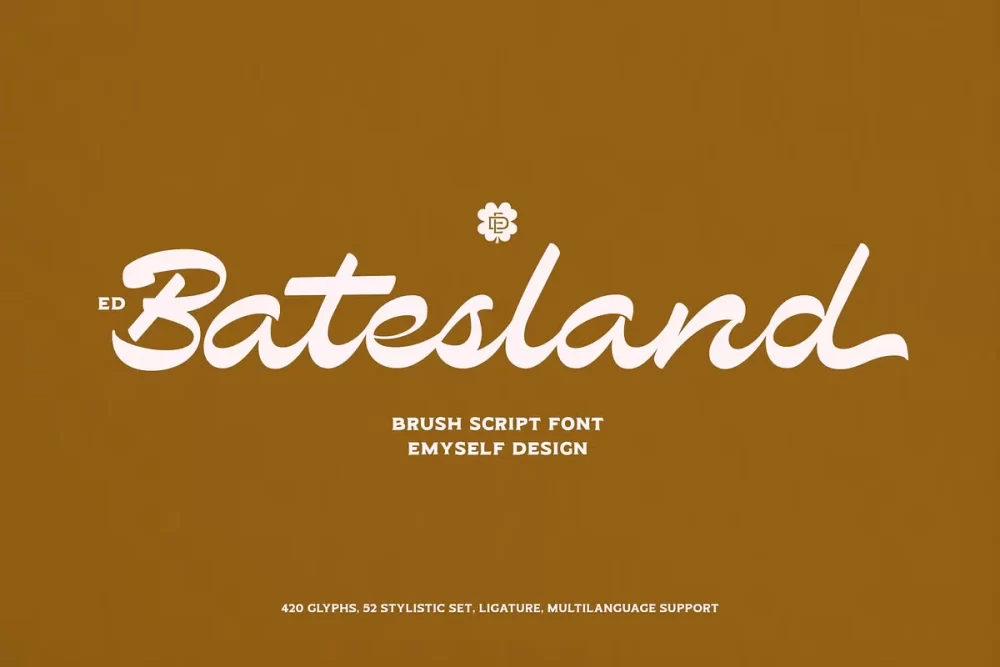
ED Batesland is a brush script font with a classic style. This font is also equipped with 52 stylistic sets, ligatures, and multi-language support which further adds to the creativity in using this font.
This font is perfect for your creative projects such as Logotype, printed quotes, invitations, cards, product packaging, headers, Letterhead, Apparel, Web design, Magazine, Book, etc.